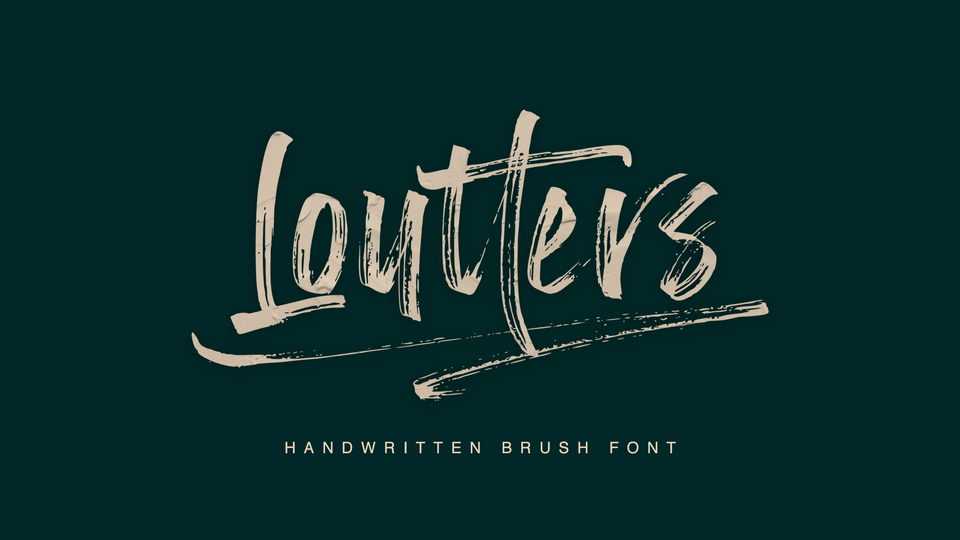
Download Loutters font, a prominent and eye-catching handwritten brush font with a fast and textured sweep style. Loutters is very easy to use for a variety of design needs such as logos, brands, packaging, book titles, etc.
Designer: Letteratom